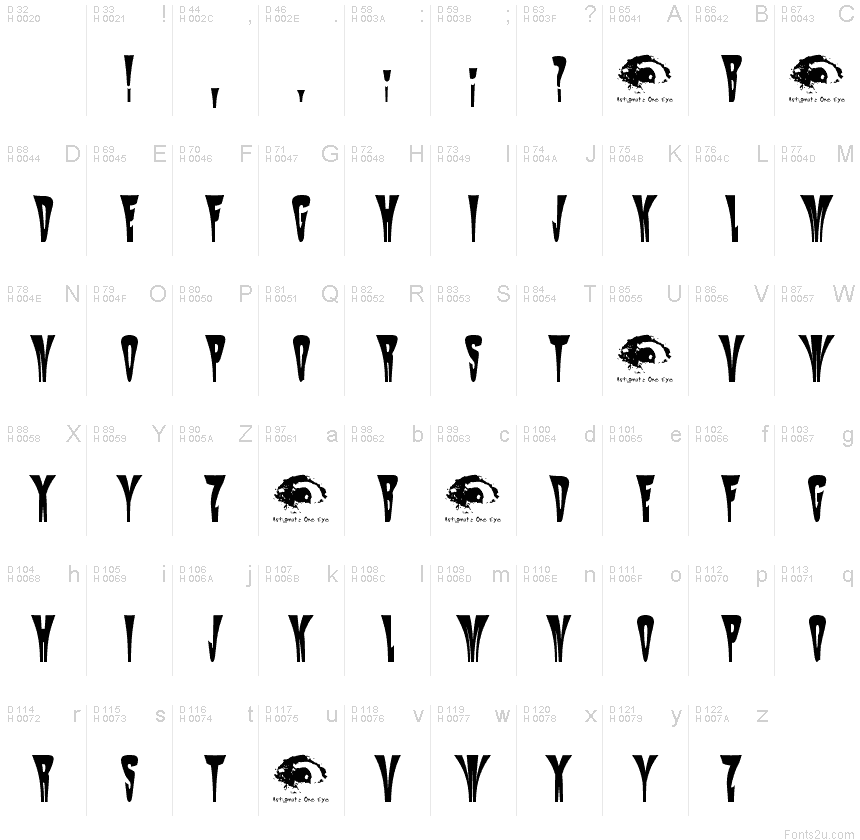
Mysterio SWTrial
Mysterio SW font by Astigmatic One Eye is a free distorted display font with tall, narrow forms and sharply warped strokes that flare, pinch, and bend as they move across each letter. The uneven edges and sliced openings give it a restless, hand-cut rhythm that feels more fractured than polished.
Mysterio SW works well for horror posters, haunted event flyers, fantasy game titles, album art, and dramatic cover lettering where a tense, broken texture makes sense. It also suits logo accents, Halloween packaging, and short editorial bursts because the distorted shapes carry their own visual drama without needing much extra decoration.